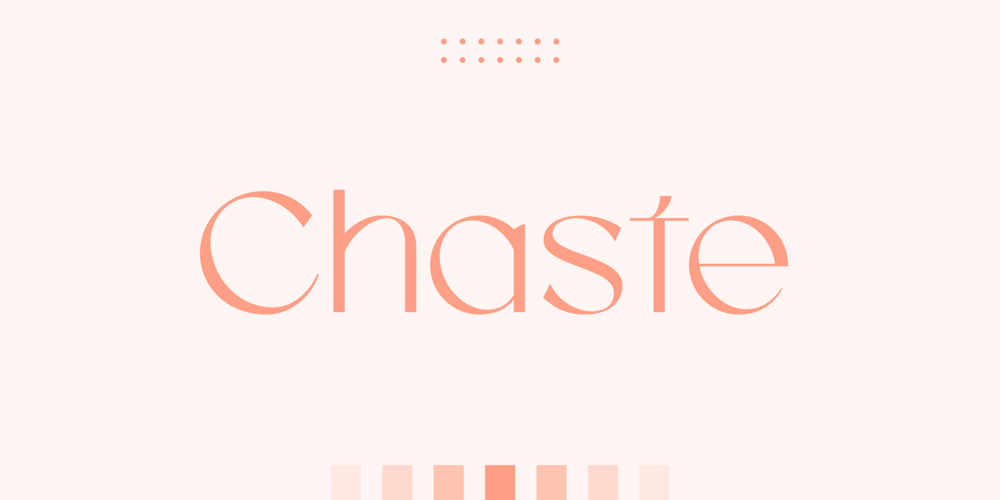
Chaste
Chaste font
Chaste Font Family was designed by Bakhrudin Ja’far and published by Jafar07. Chaste contains 1 styles and family package options. Chaste a very elegant sans serif font featuring clean lines, and sharp edges with oval combinations, very pretty but still has strong straight lines.Chaste makes it very easy for those of you who design minimalist and modern designs, it has upper and lowercase letters that are very easy to combine with other fonts.Support for 80 languages :Afrikaans, Albanian, Czech, Dutch, English, French, Italian, Portuguese, Swedish, Irish, Norwegian Bokmål, Norwegian Nynorsk, Nyankole, Oromo, Filipino, Finnish, Swiss German, Taita, Teso, Upper Sorbian, Uzbek (Latin), Volapük, Vunjo Etc.